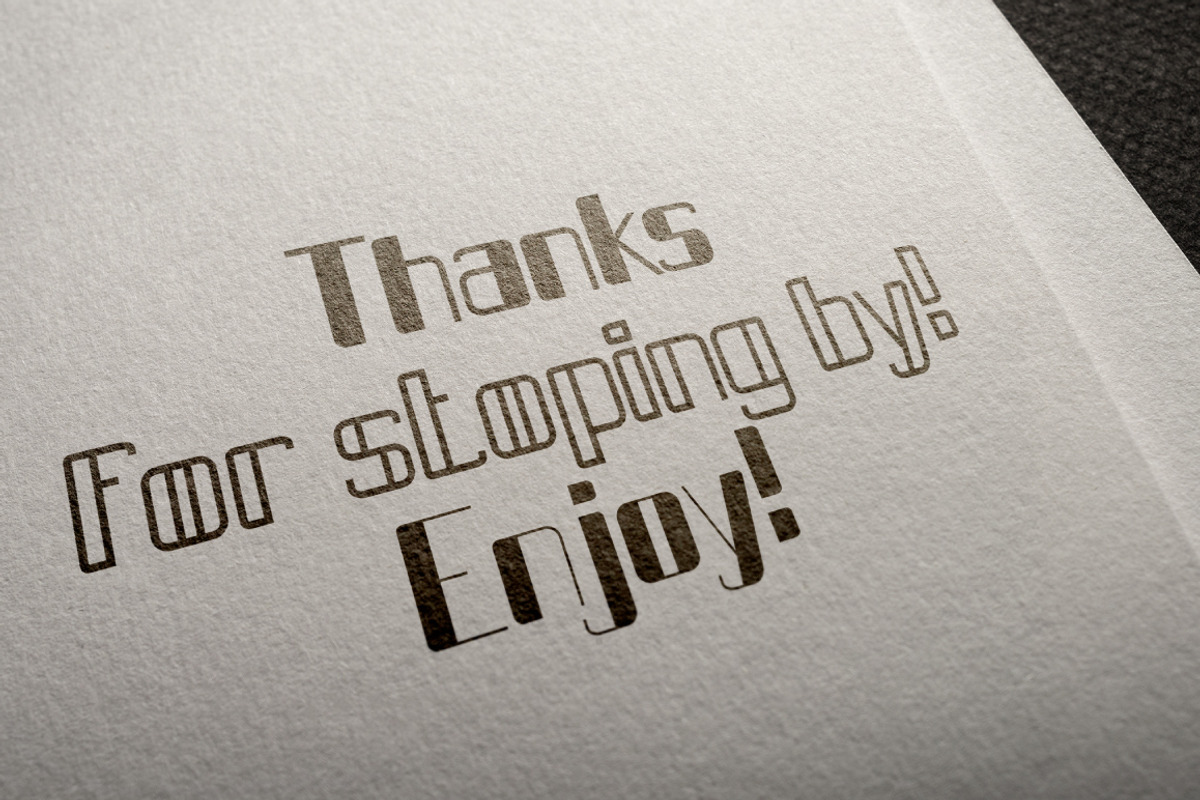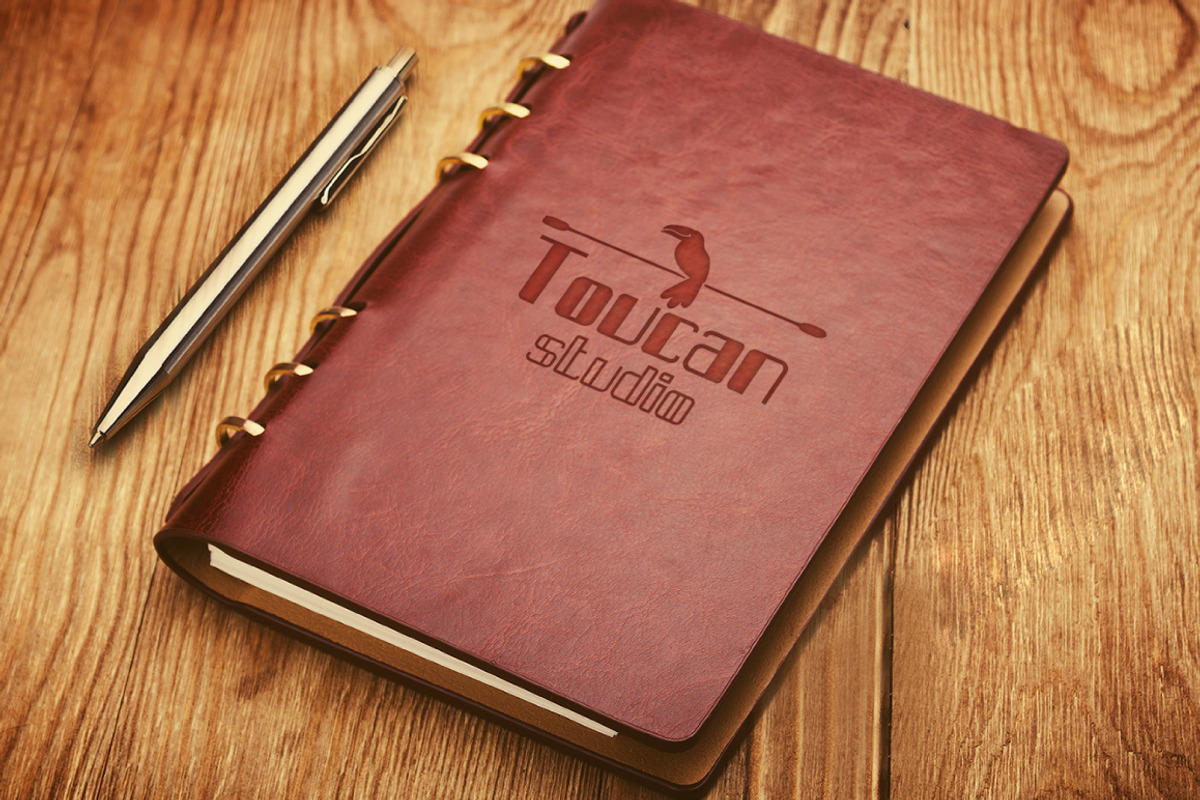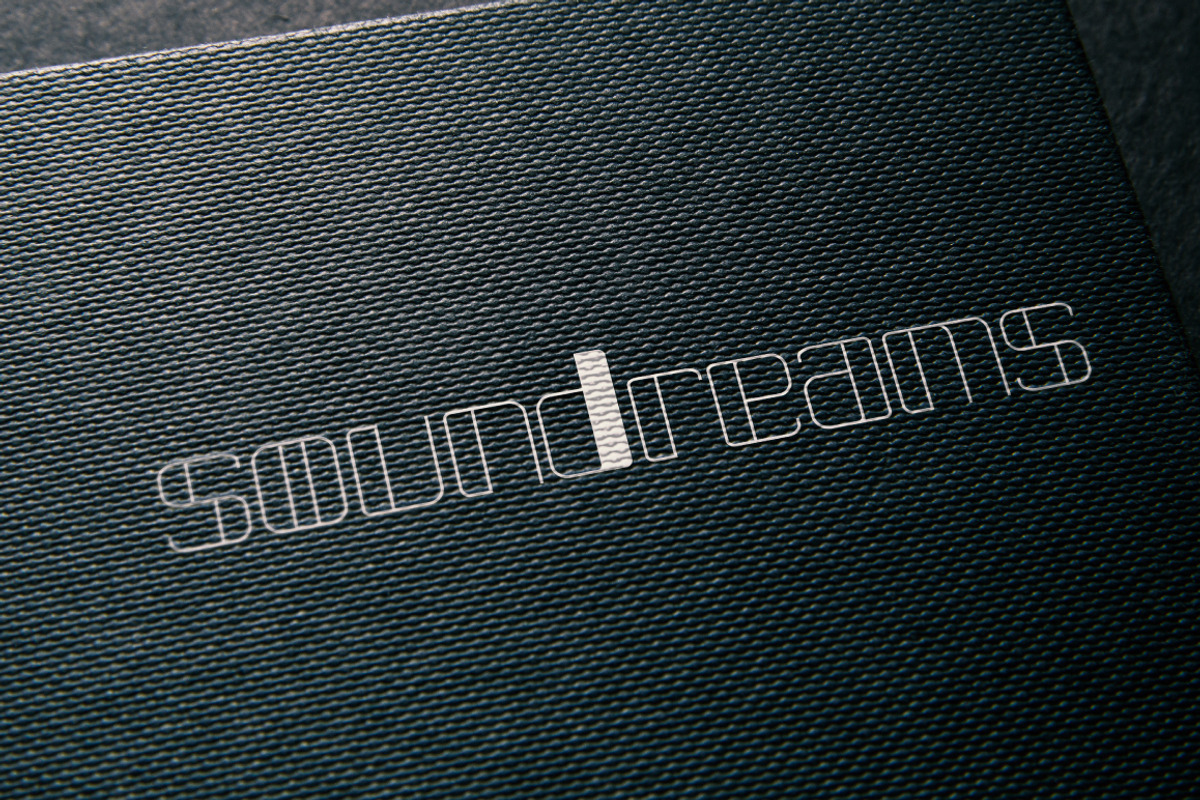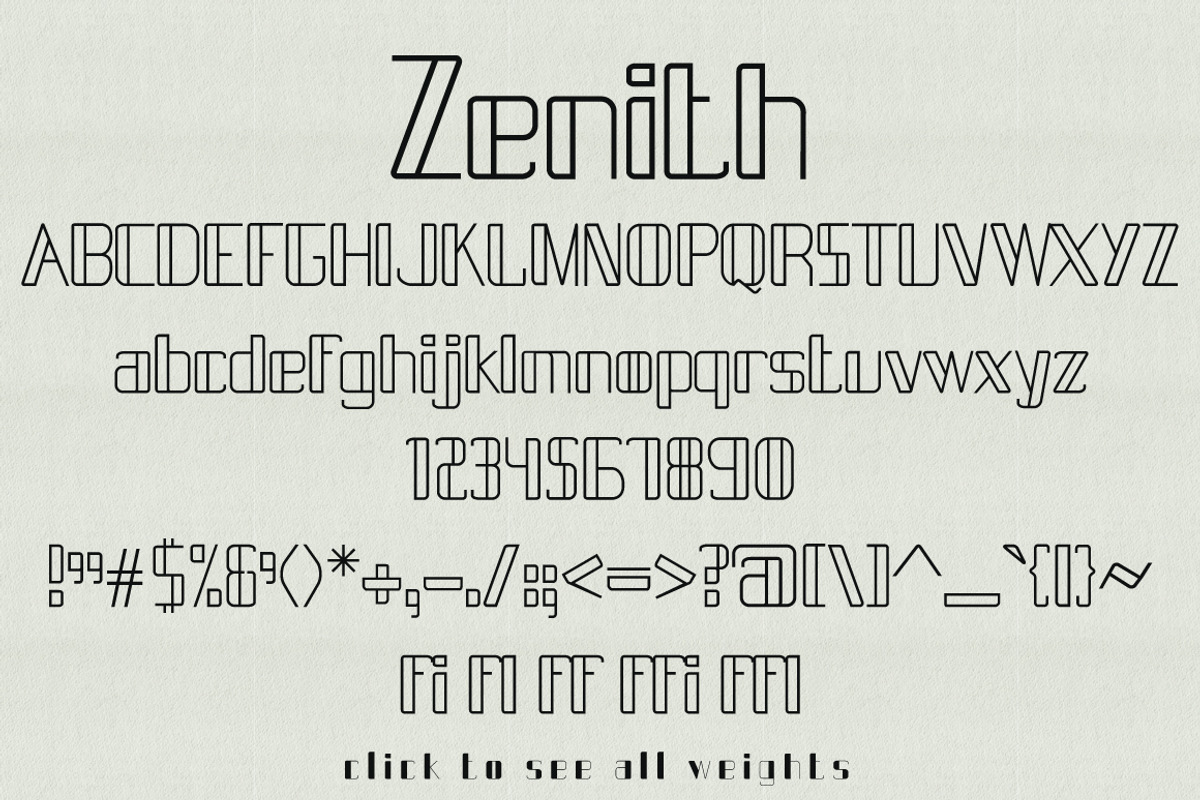
Zenith typeface
Zenith typeface by Anna Ivanir is a font selected for branding, posters, packaging, typography.
Why Zenith typeface is worth a look
Zenith typeface by Anna Ivanir fits naturally into Branding, posters, packaging, typography.